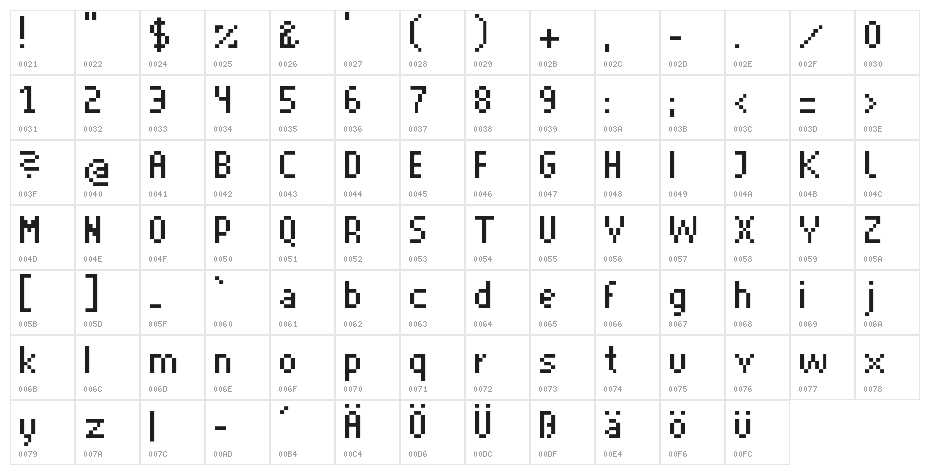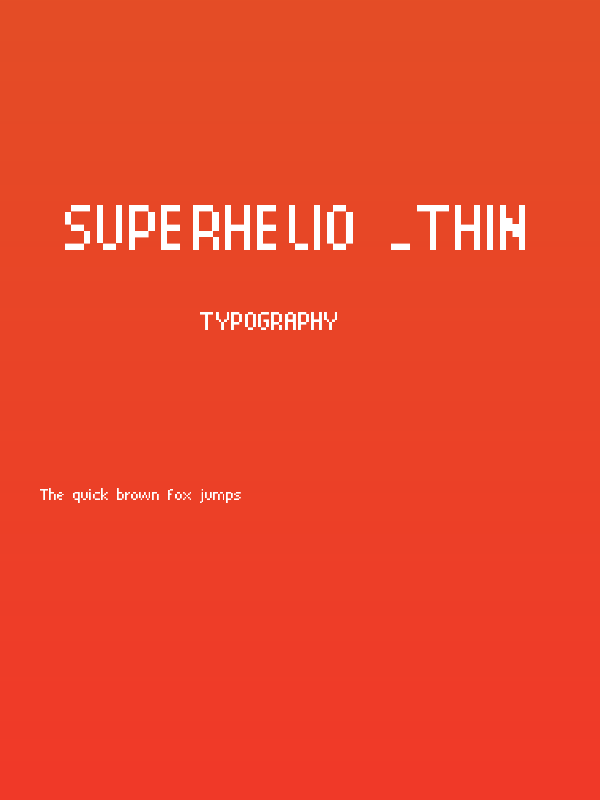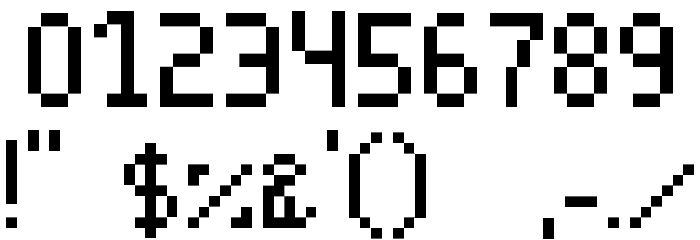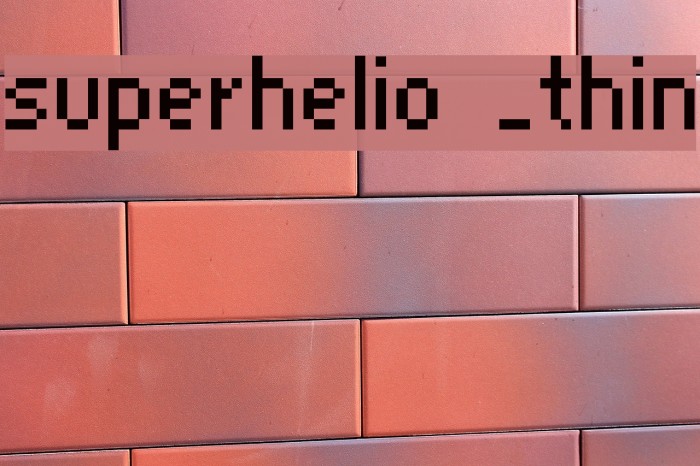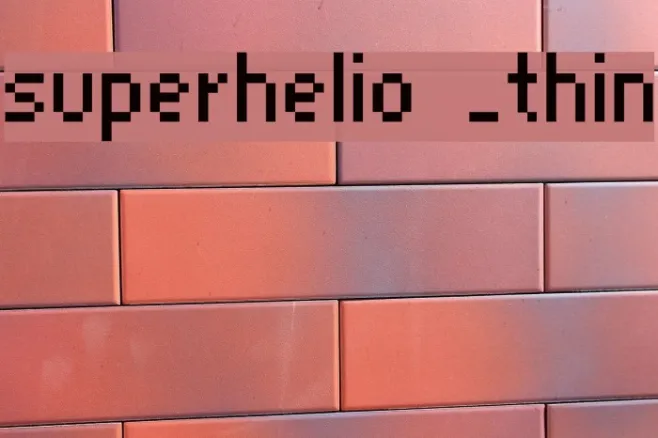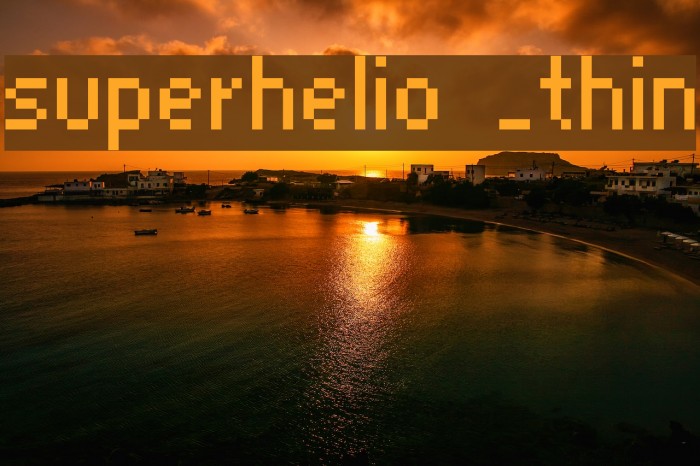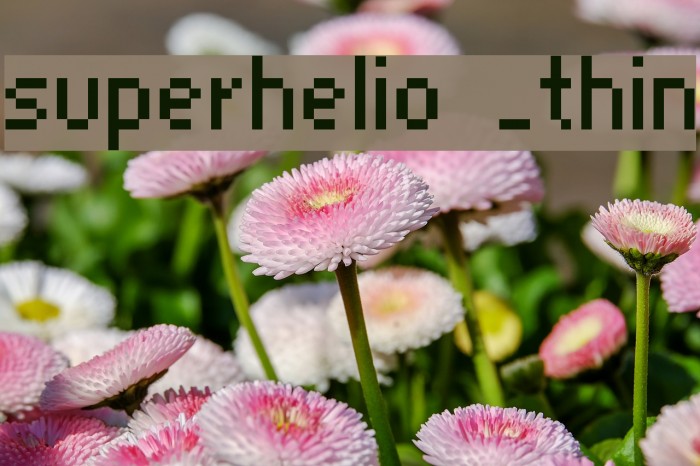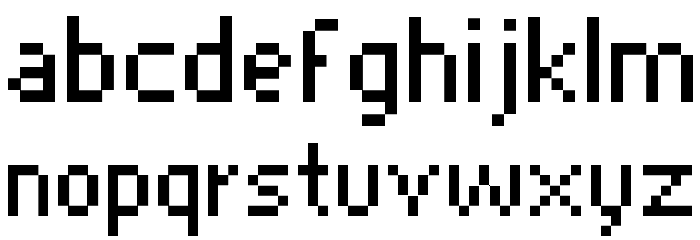
superhelio _thin Font
superhelio _thin Description
This font features a pixelated, blocky design reminiscent of early digital displays and retro video games. Each character is constructed with a grid-like precision, giving it a distinctly digital and geometric appearance. The uppercase and lowercase letters maintain a consistent height, contributing to a uniform and cohesive look. Numbers and special characters follow the same pixelated style, ensuring visual harmony across all elements. The font's simplicity and clarity make it highly legible, even at smaller sizes, while its unique style adds a nostalgic touch to any design.
| Overall Style | Retro, Digital |
| Use Case | Headlines, Logos, Digital displays |
| Proposed Projects | Ideal for retro-themed designs, video game graphics, digital art projects, and any creative work seeking a nostalgic or tech-inspired look. |